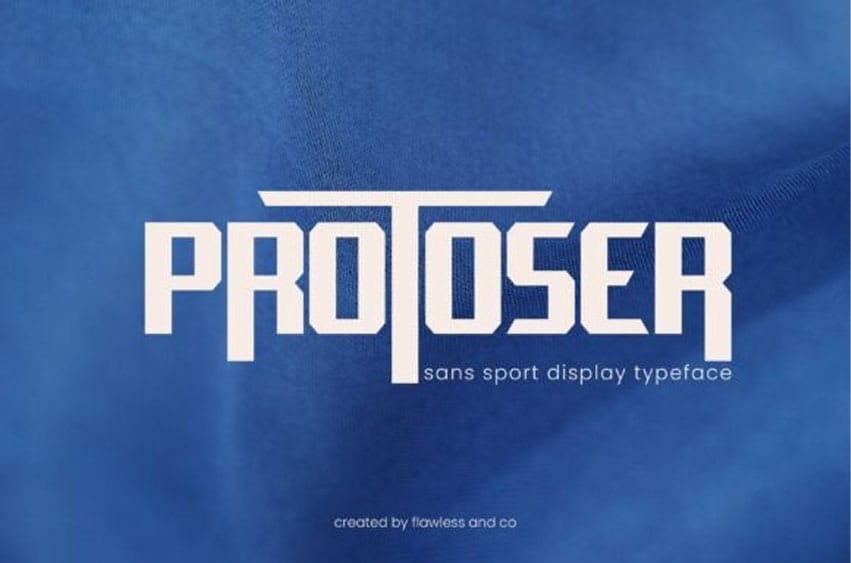
Protoser Font is a bold and dynamic sans serif sport display typeface designed to capture attention and deliver a strong visual impact. Its sharp geometric structure and modern styling make it perfect for athletic branding, team logos, sports posters, and energetic headlines.
PROTOSER exudes power and confidence, making it the ideal choice for projects that need a fearless and competitive edge.